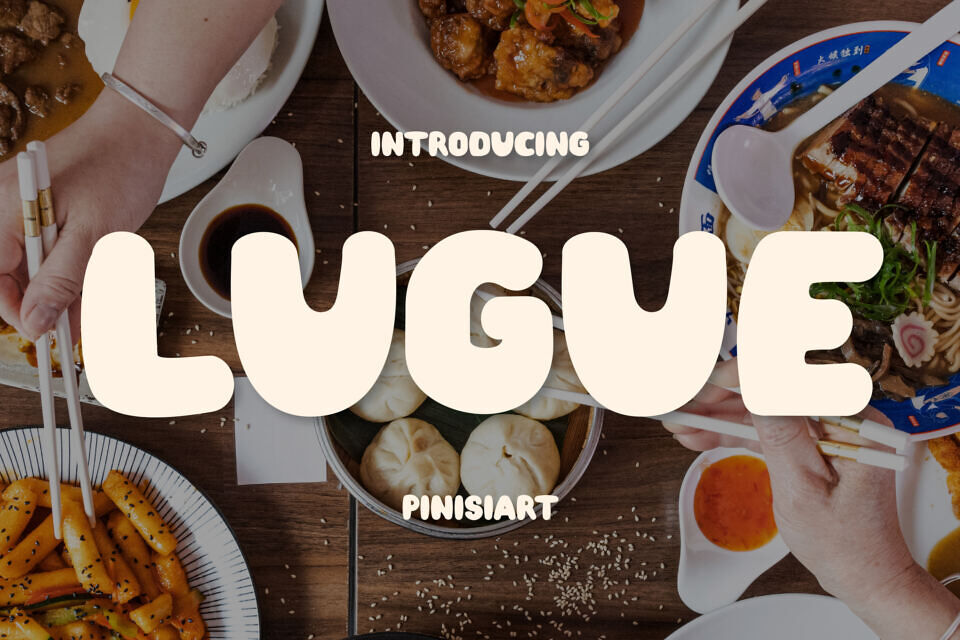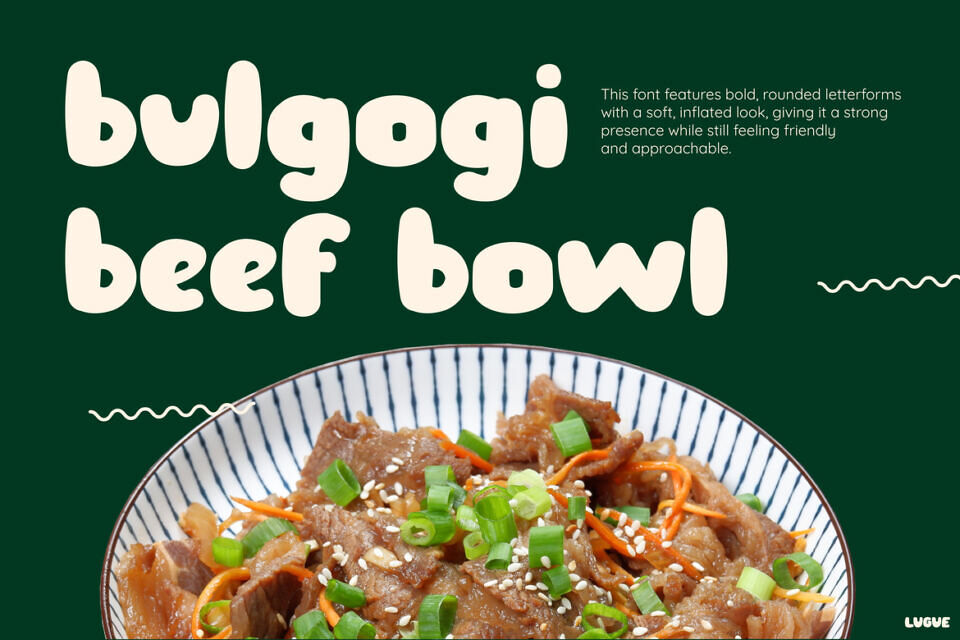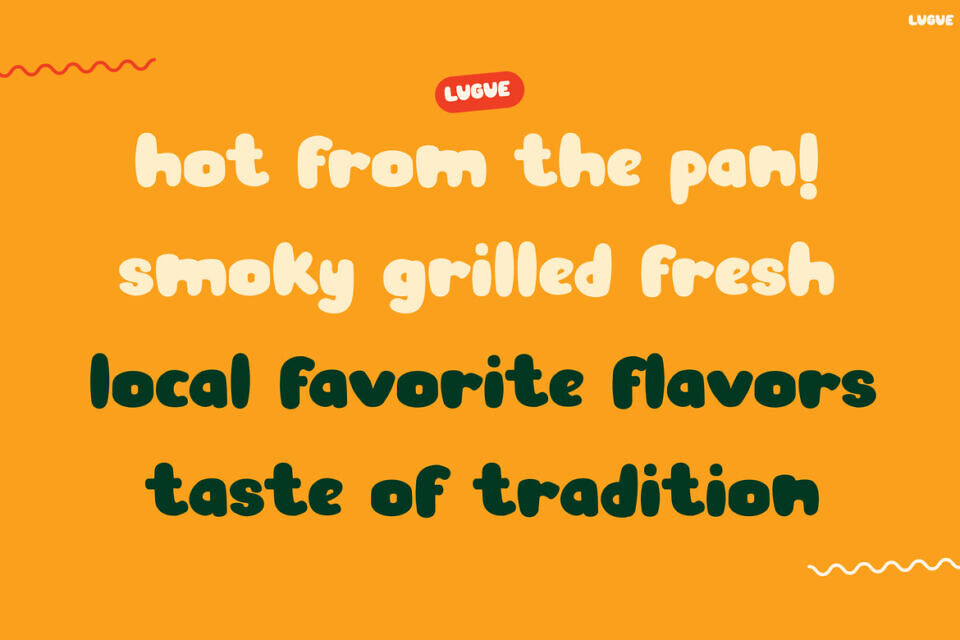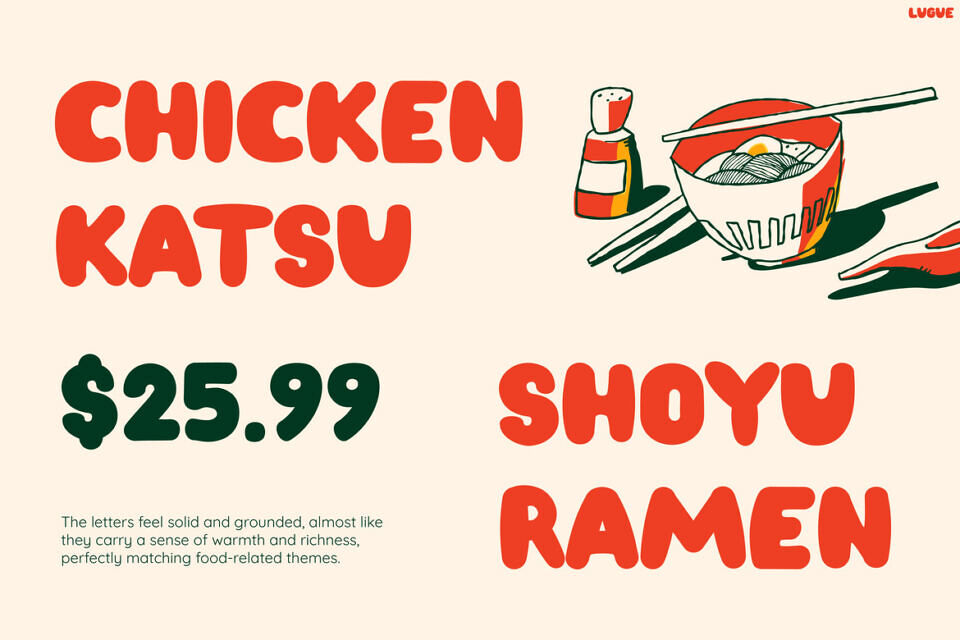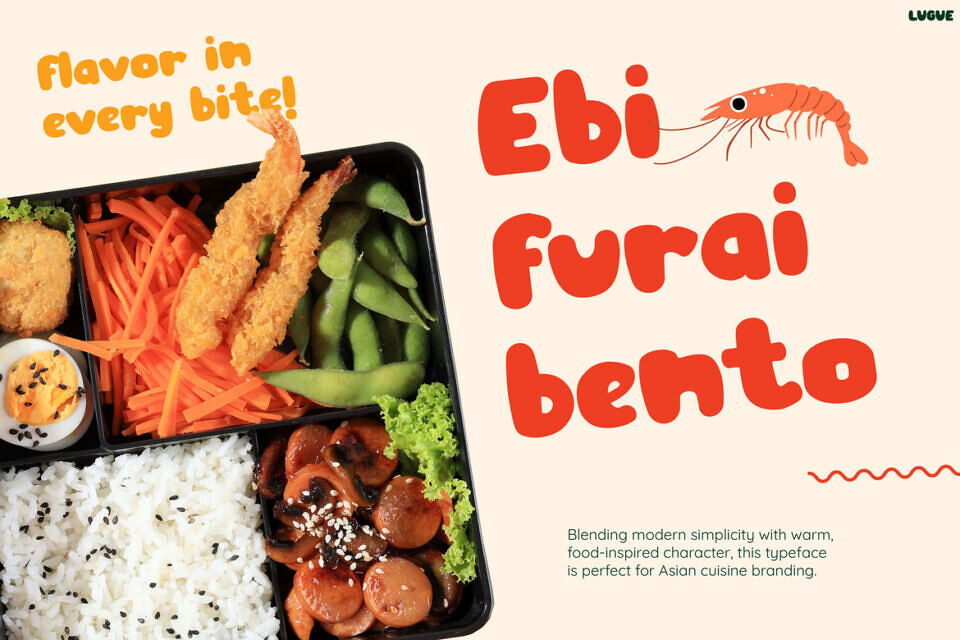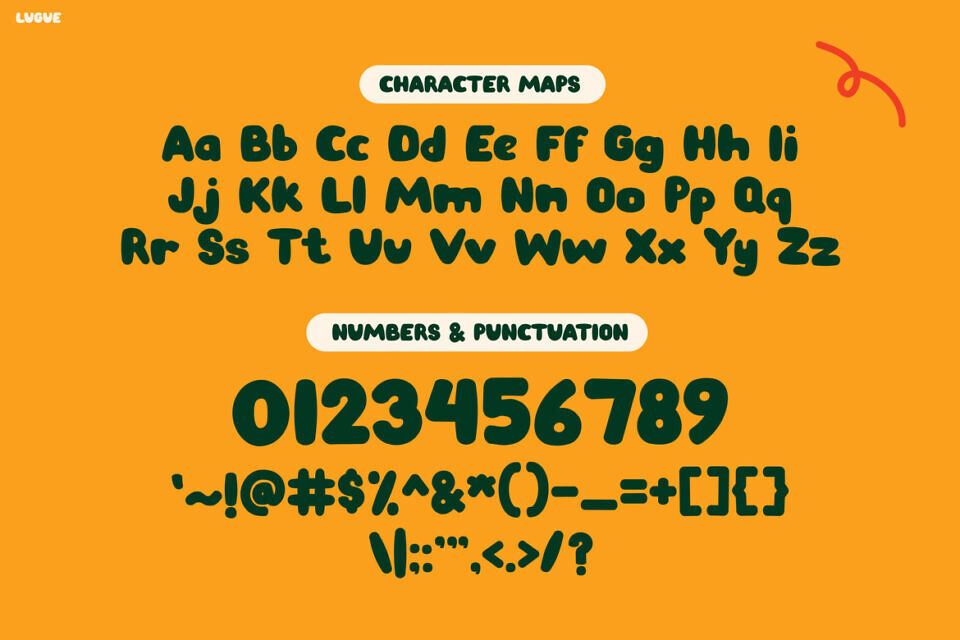
Lugue font combines chunky shapes and soft curves, creating a bold, friendly, and fun vibe. Its rounded style adds warmth, while slightly irregular forms give it a handmade feel.
This unique font is easy to read in large sizes, making it perfect for menus, posters, and social media designs. It blends strong visuals with clear function, bringing a playful mood to designs with its stable yet cheerful strokes and clean, modern look.